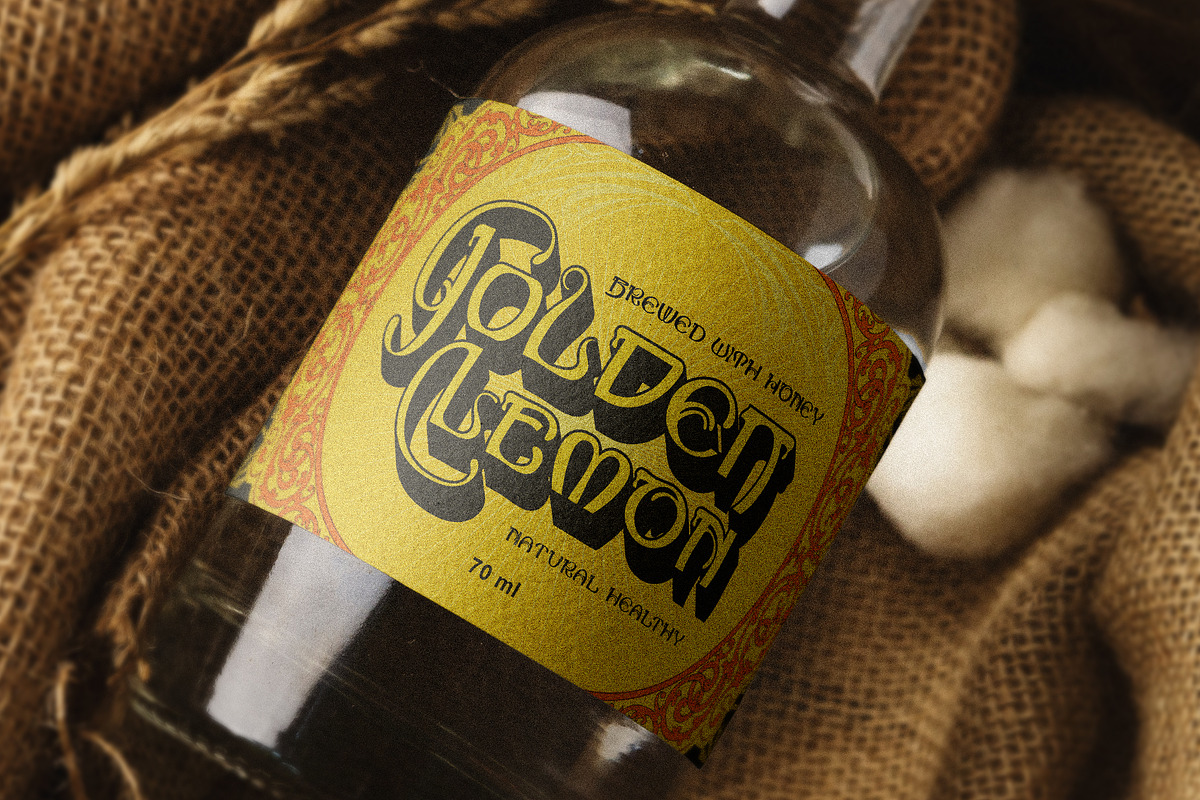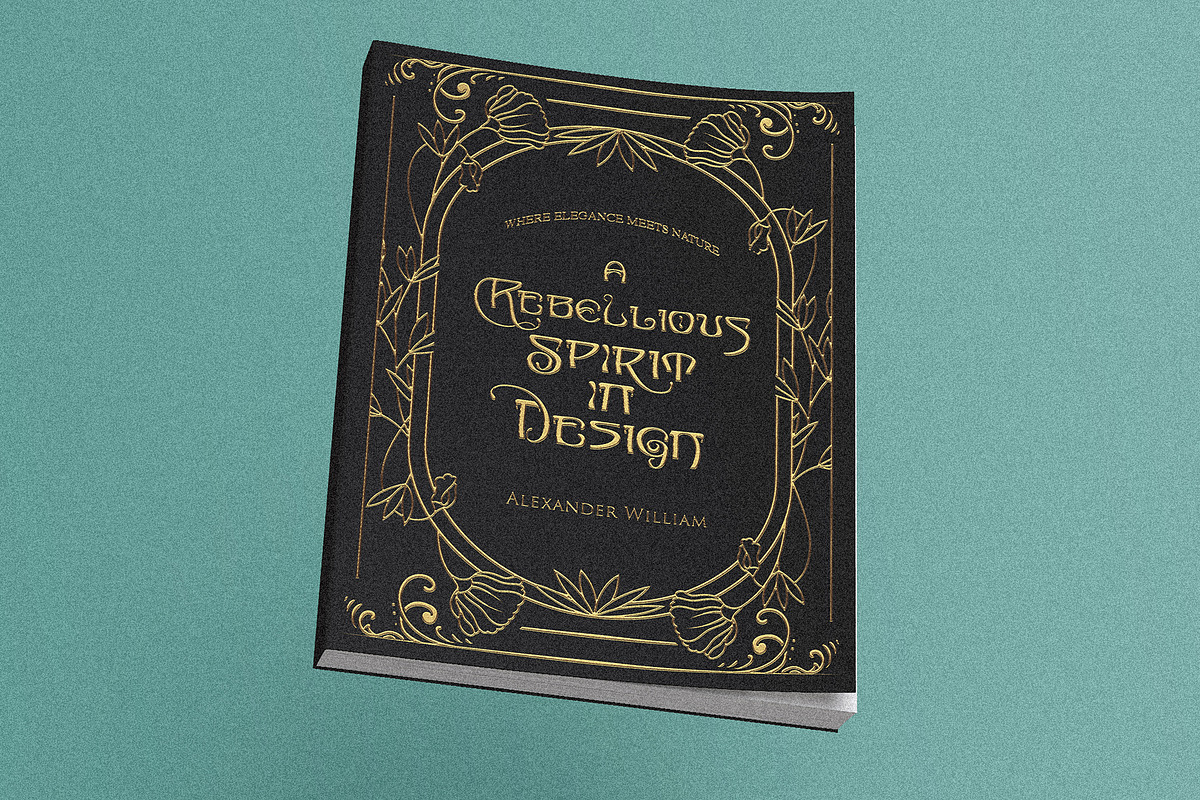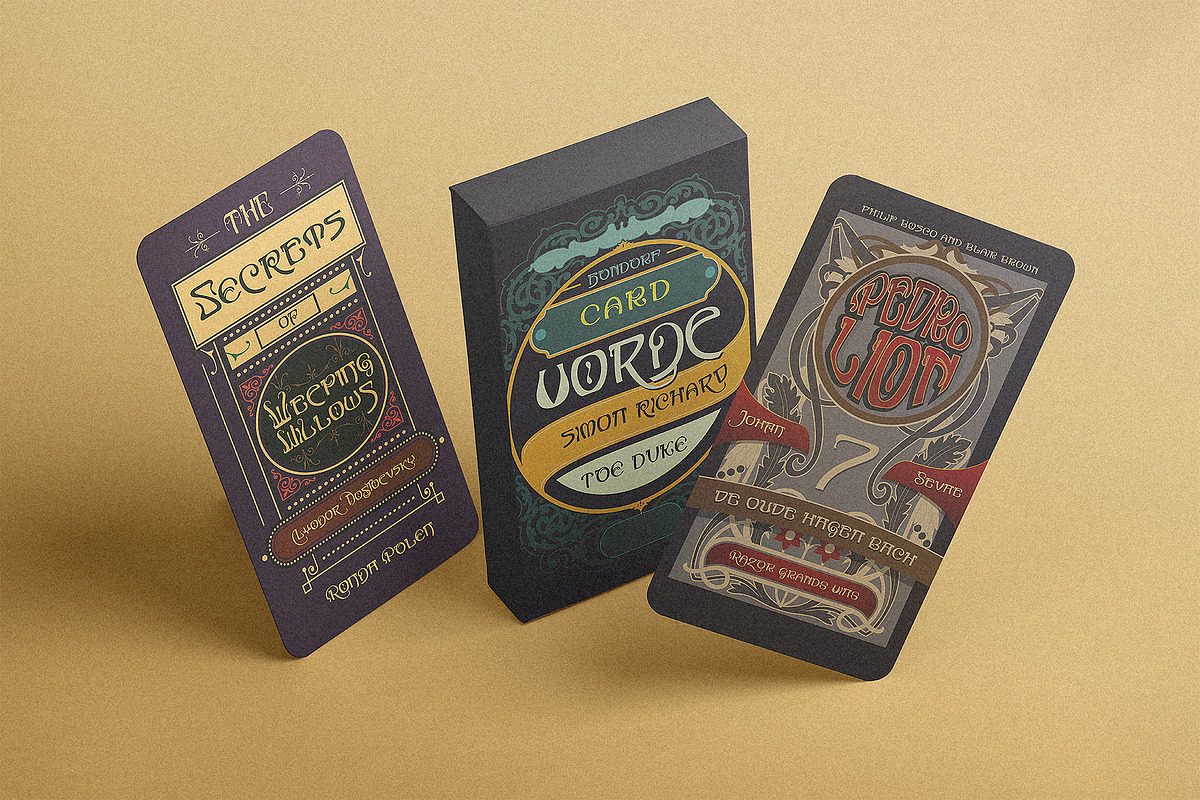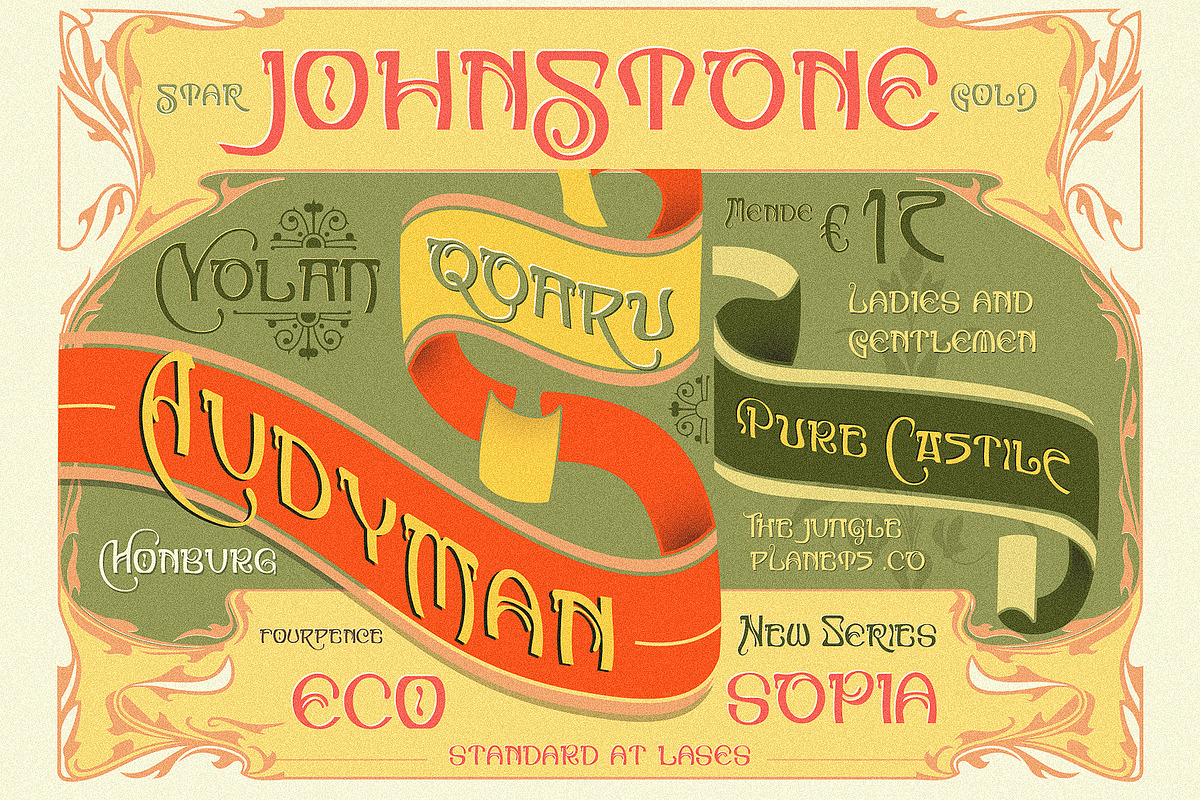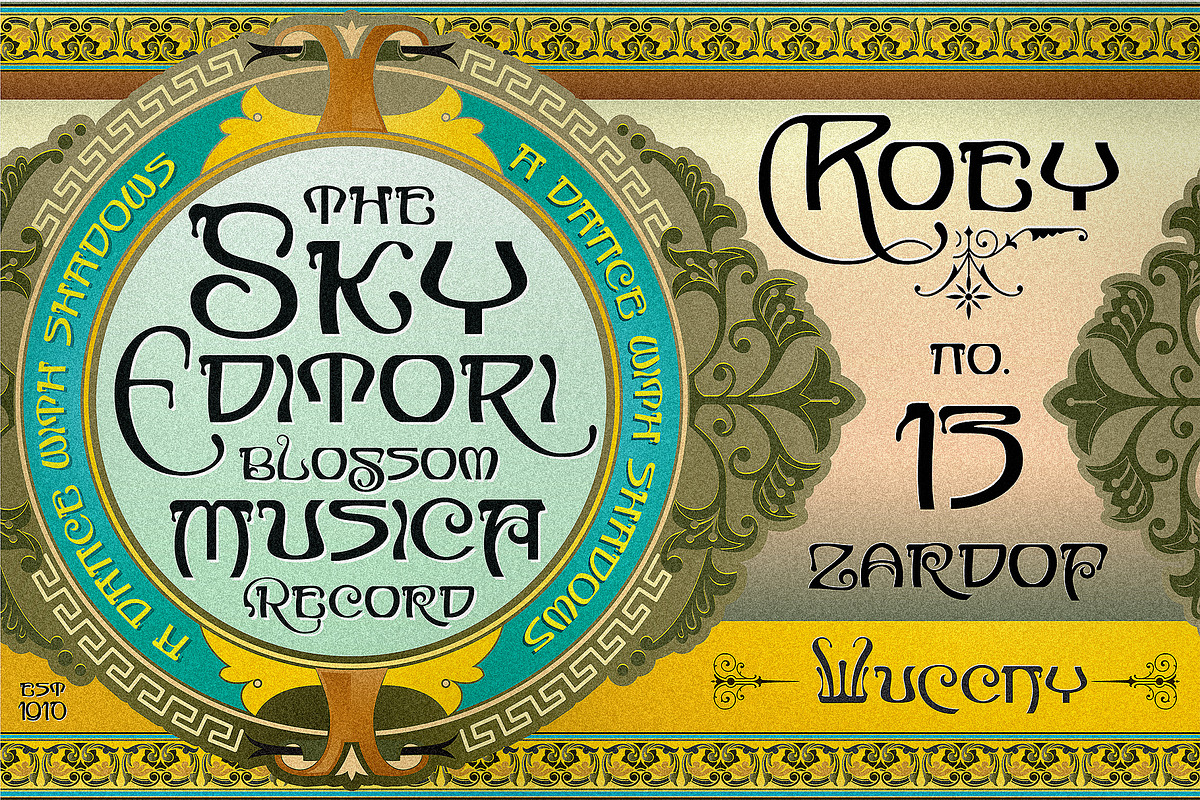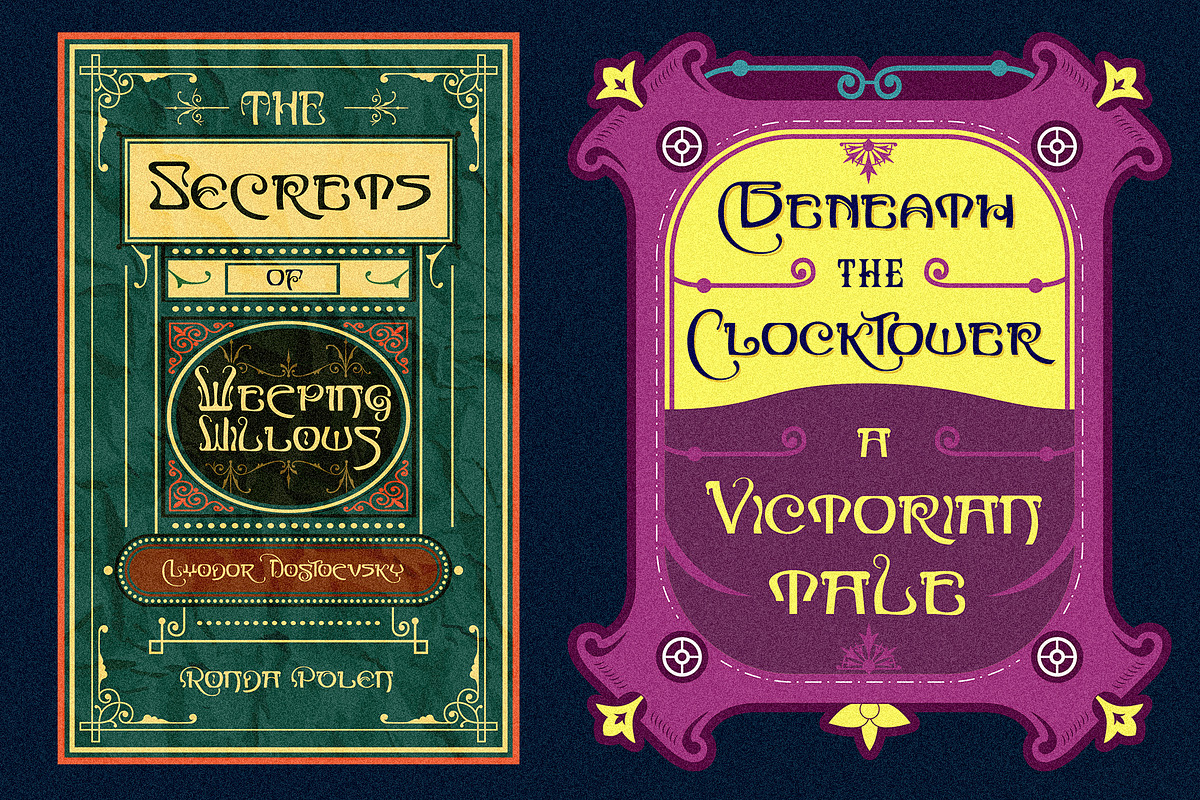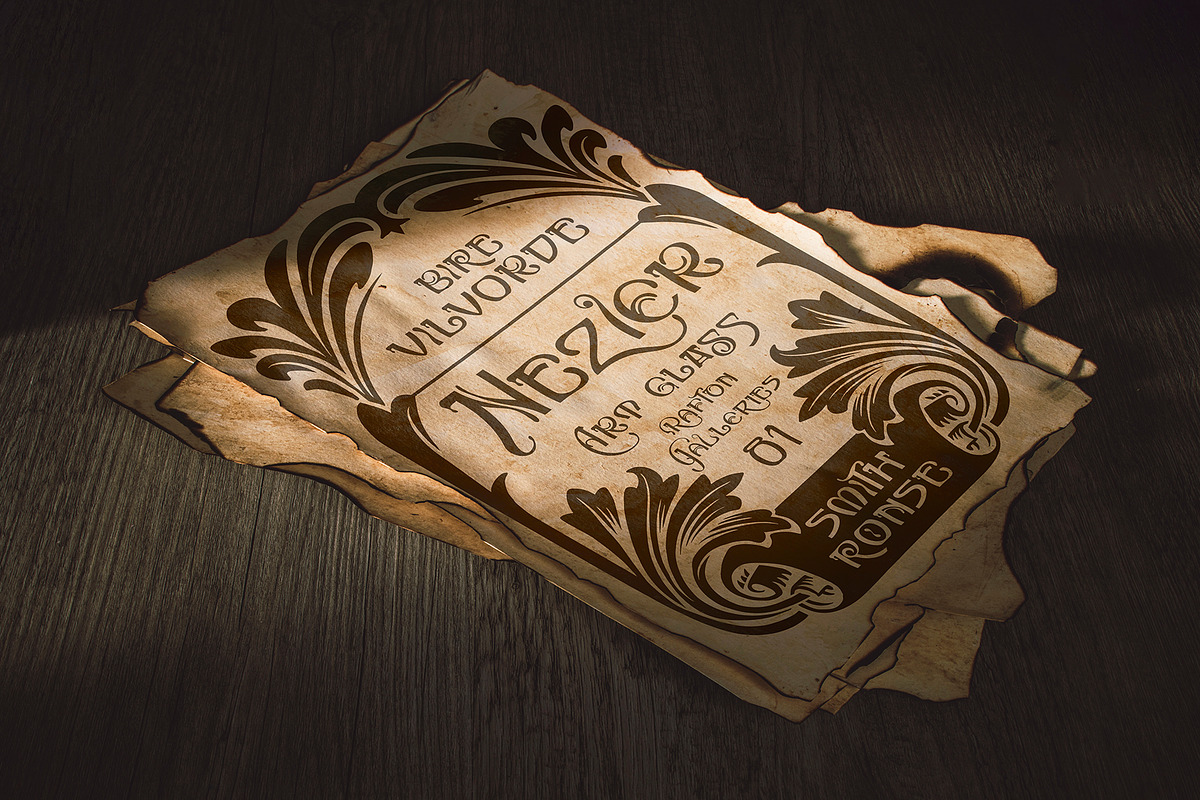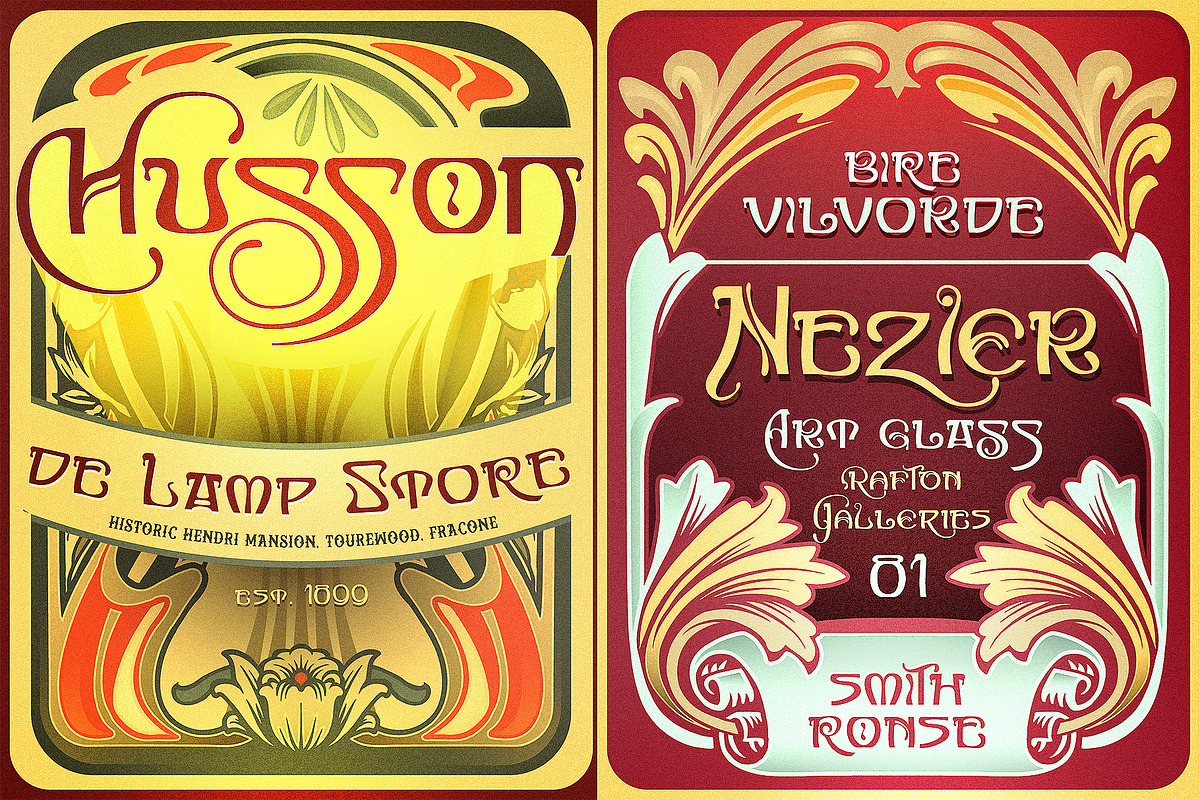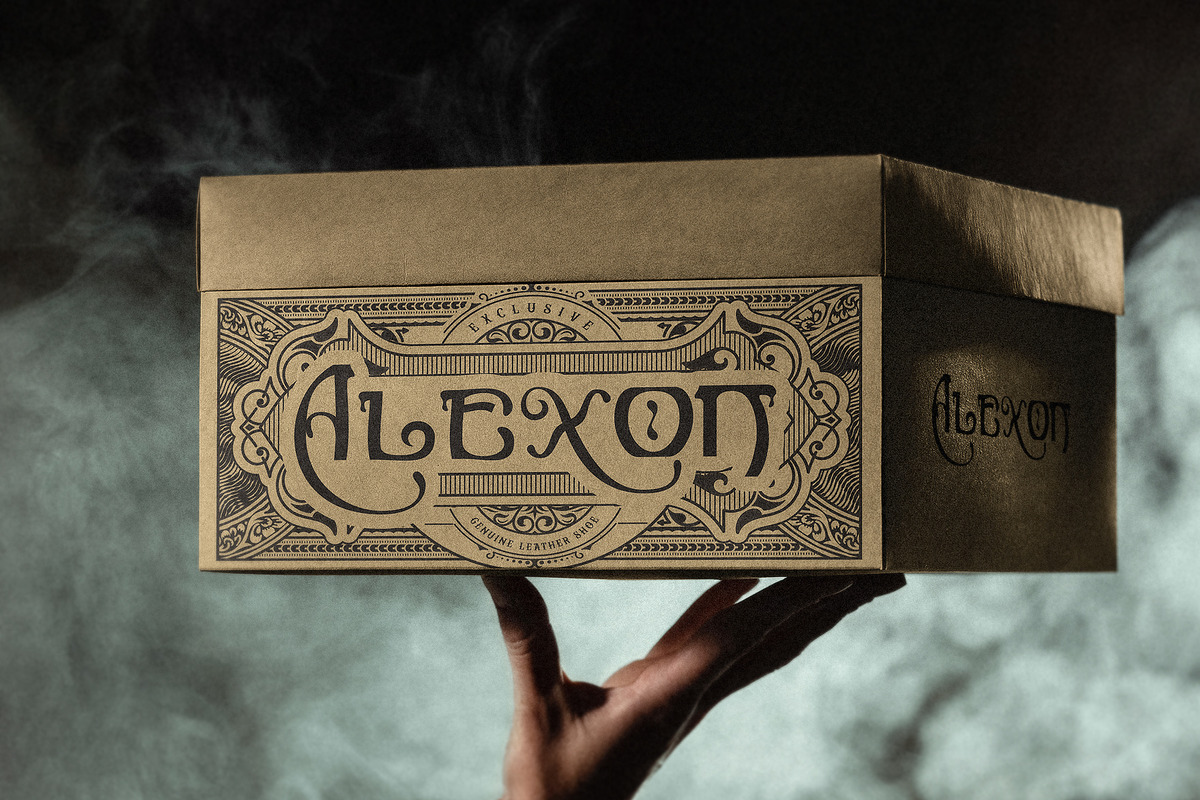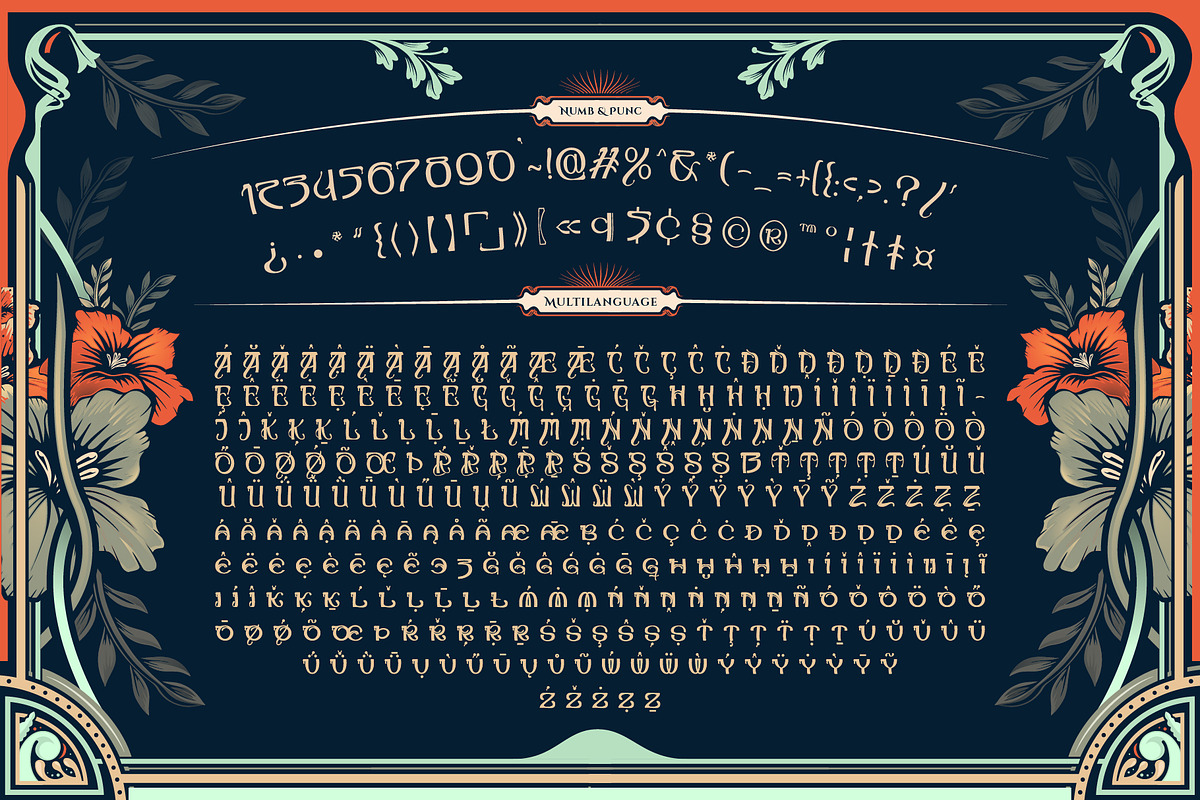
De Mucha | Art Nouveau Style Font
Introducing
De Mucha Typeface, Art Nouveau is an artistic style that emerged in the late 19th and early 20th centuries combining classic typography with awesome features bring classic touch on this period. It's known for its flowing, organic forms inspired by nature, like curvy lines and flower motifs. It features over 500 Gylphs
- Layered font system
- Character Set A-Z
- Stylistic Alternate (ss01)
- Stylistic Alternate (ss02)